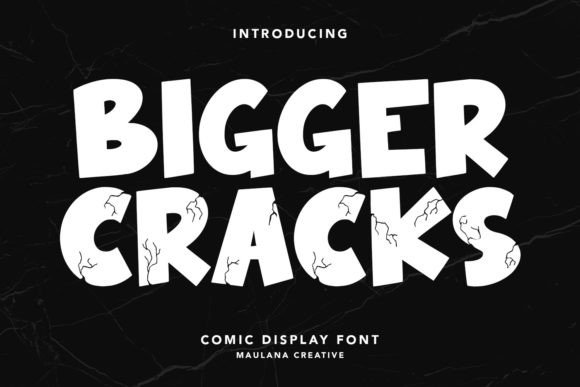
I’ll never forget the time I was working on a project for a client who wanted a bold, eye-catching font to make their poster stand out. I had spent hours scouring the internet for the perfect font, but nothing seemed quite right. That was until I stumbled upon Bigger Cracks Font. With its unique, crackling design, it was love at first sight! In this article, I’ll share my experience with Bigger Cracks Font, its features, and how to make the most of it in your designs.
What is Bigger Cracks Font?
Bigger Cracks is a trendy and attractive display font that crackles with personality and charm. With its unique and eye-catching design, this font is perfect for adding a touch of edginess to your designs, whether you’re creating posters, album covers, or social media graphics. Stand out with the crackling vibe of this font! This font is PUA encoded which means you can access all glyphs and swashes effortlessly!
- ✨ Unique and eye-catching design that adds a touch of edginess to any project
- ✅ Perfect for display text, posters, album covers, and social media graphics
⚠️ One thing to note is that Bigger Cracks Font is a display font, so it’s best used for headlines and titles rather than body text. Additionally, some users may find the crackling effect a bit too distressed for their taste.
🤔 Another thing to consider is that, like any font, Bigger Cracks may not work well with all design styles or color schemes. It’s best to experiment and find the right combination that works for your project.
The designer behind Bigger Cracks Font was inspired by the urban landscape and the world of street art. They wanted to create a font that captured the energy and edginess of city life, while also being elegant and refined. The result is a font that’s both bold and beautiful, perfect for designers who want to add a touch of personality to their work.
Q: What is Bigger Cracks Font?
A: Bigger Cracks Font is a trendy and attractive display font with a unique, crackling design.